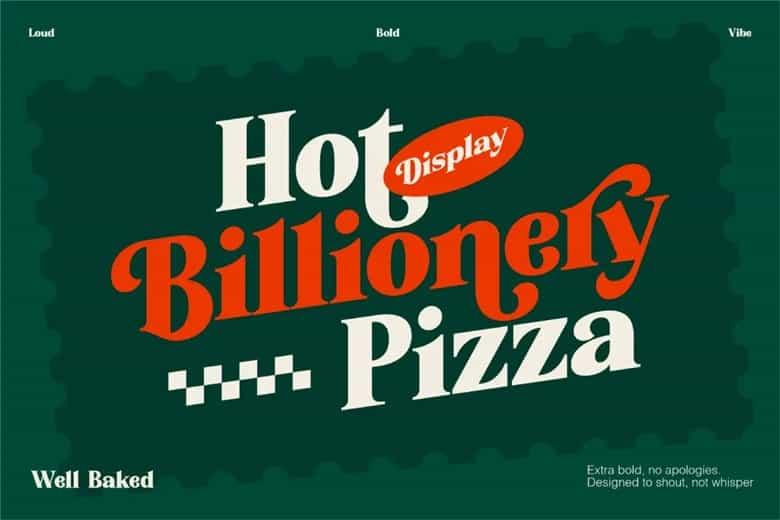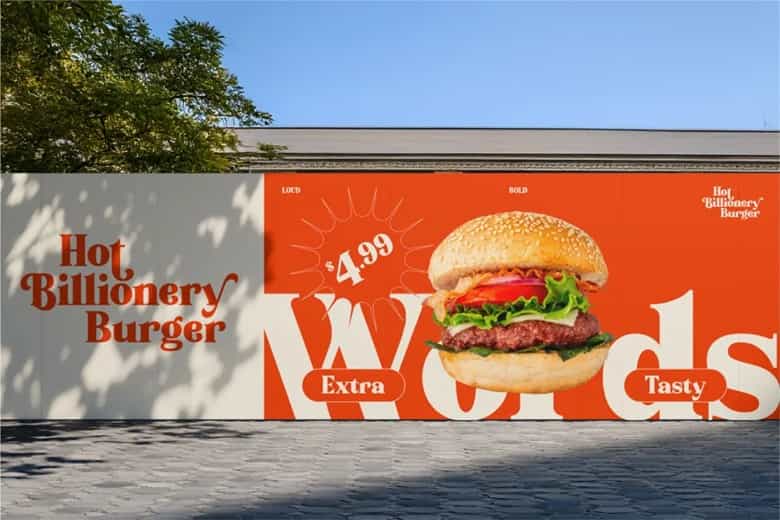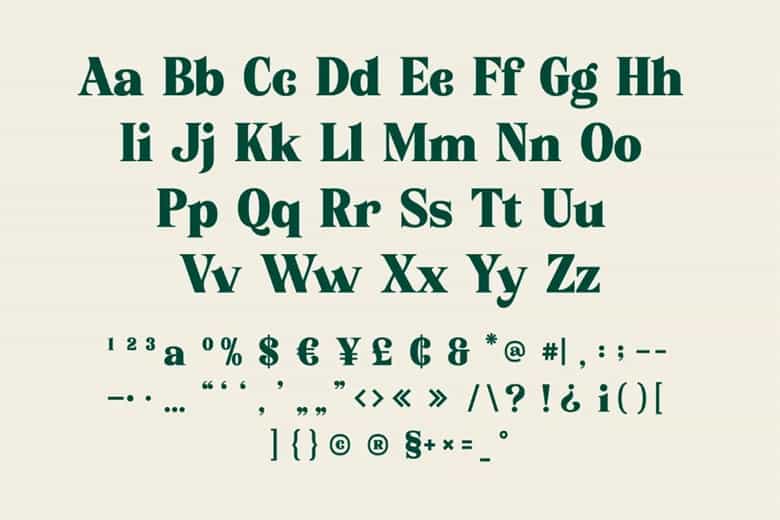
Billionery is an eye-catching and fearsome serif typeface suitable to make a strong statement in every designing process. Based on filled strokes and its bold stature, this font is ideal to use as headings, branding, logo, posters, and any design that demands heavy use of the eyes. Its crisp and potent types enable it to have a feeling of contemporary luxuriousness and expertness ideal in high-end design, editorial designs, and self-statement pictures.